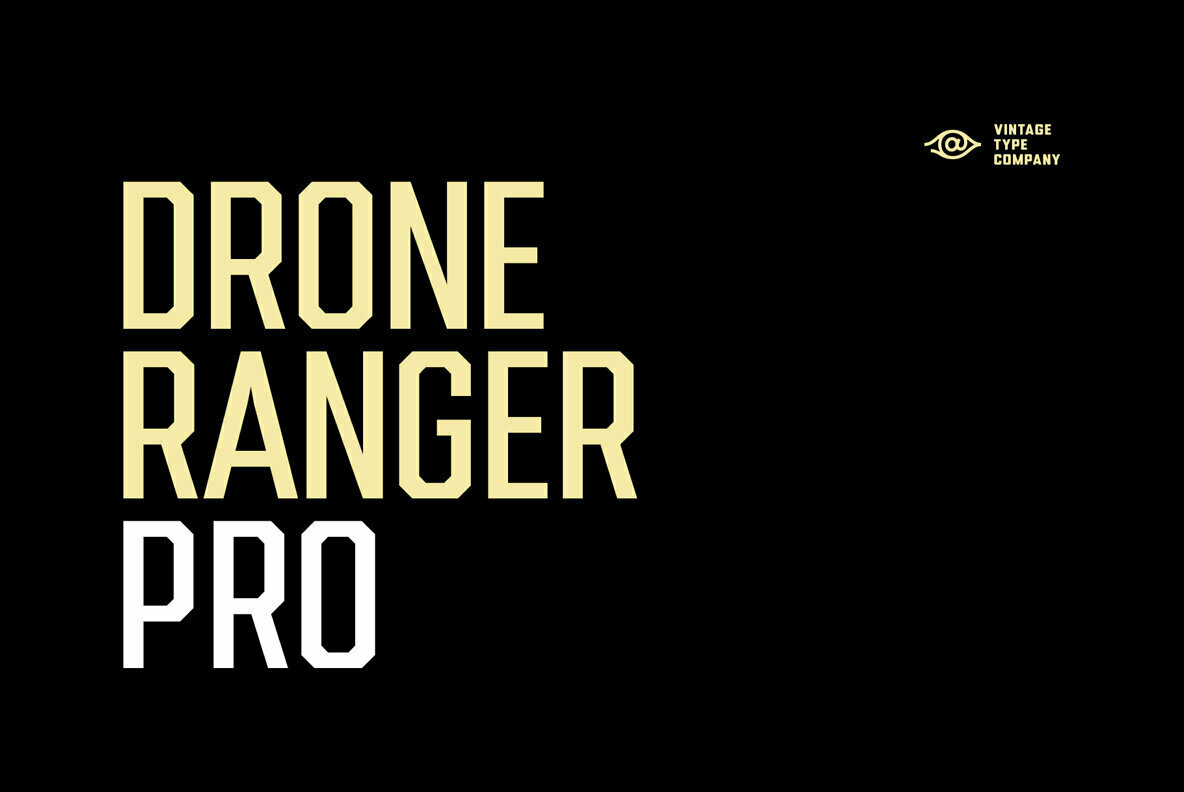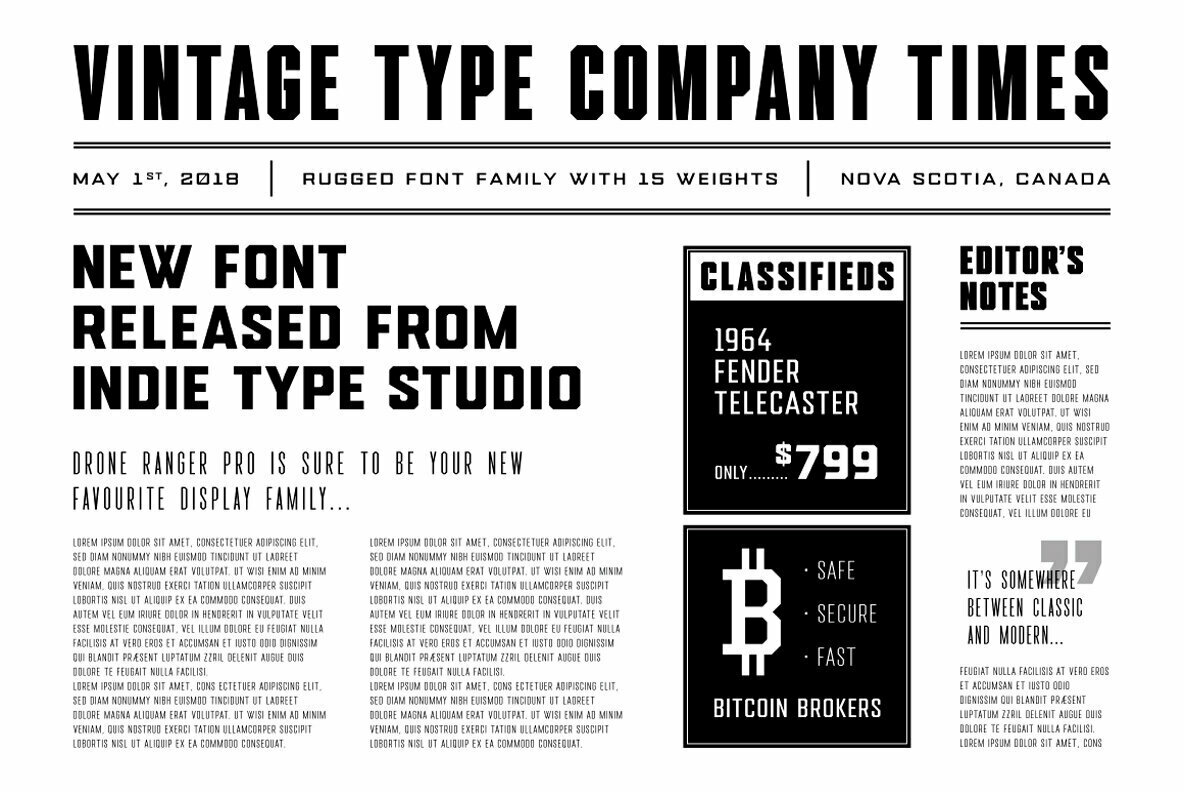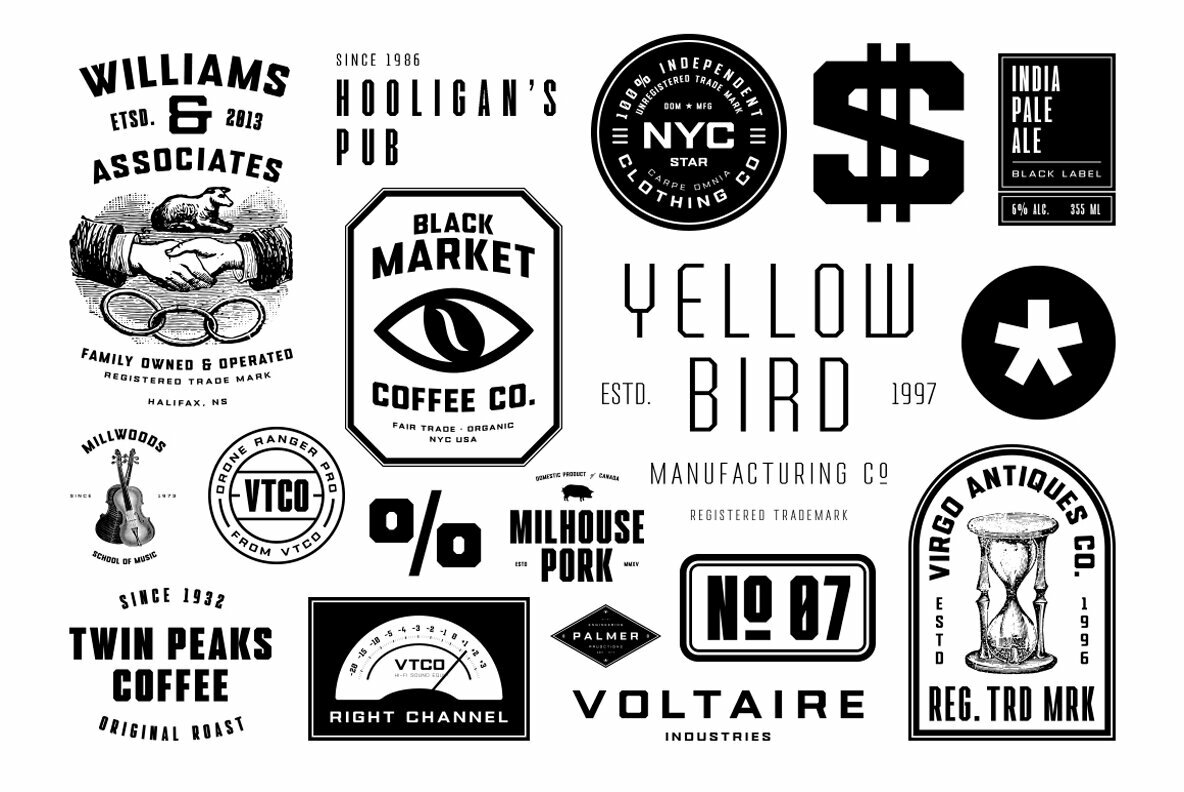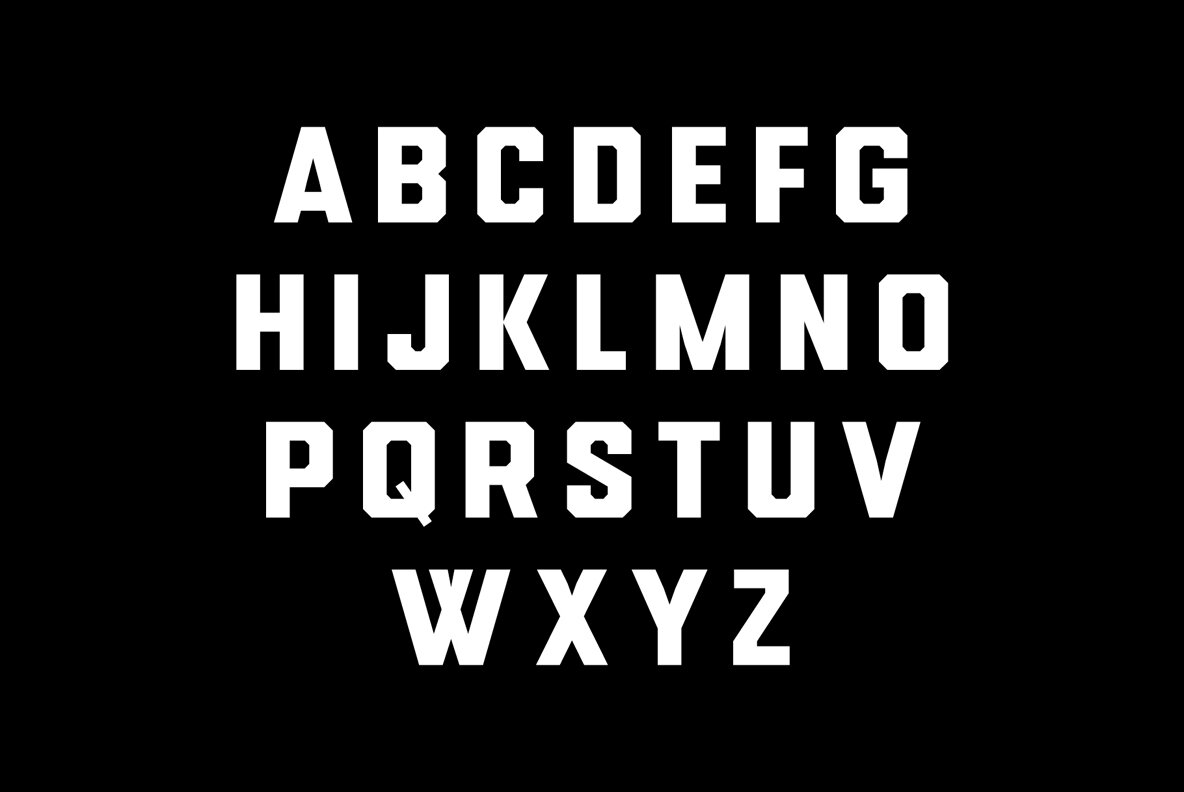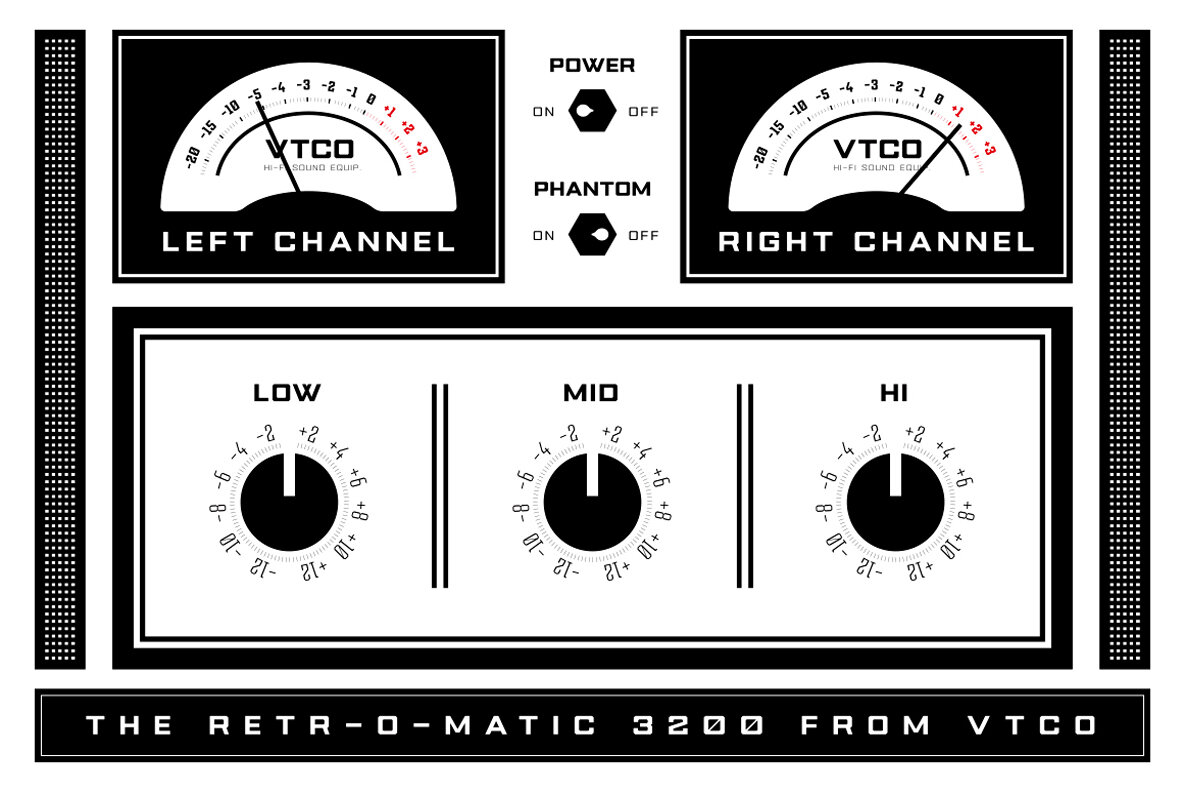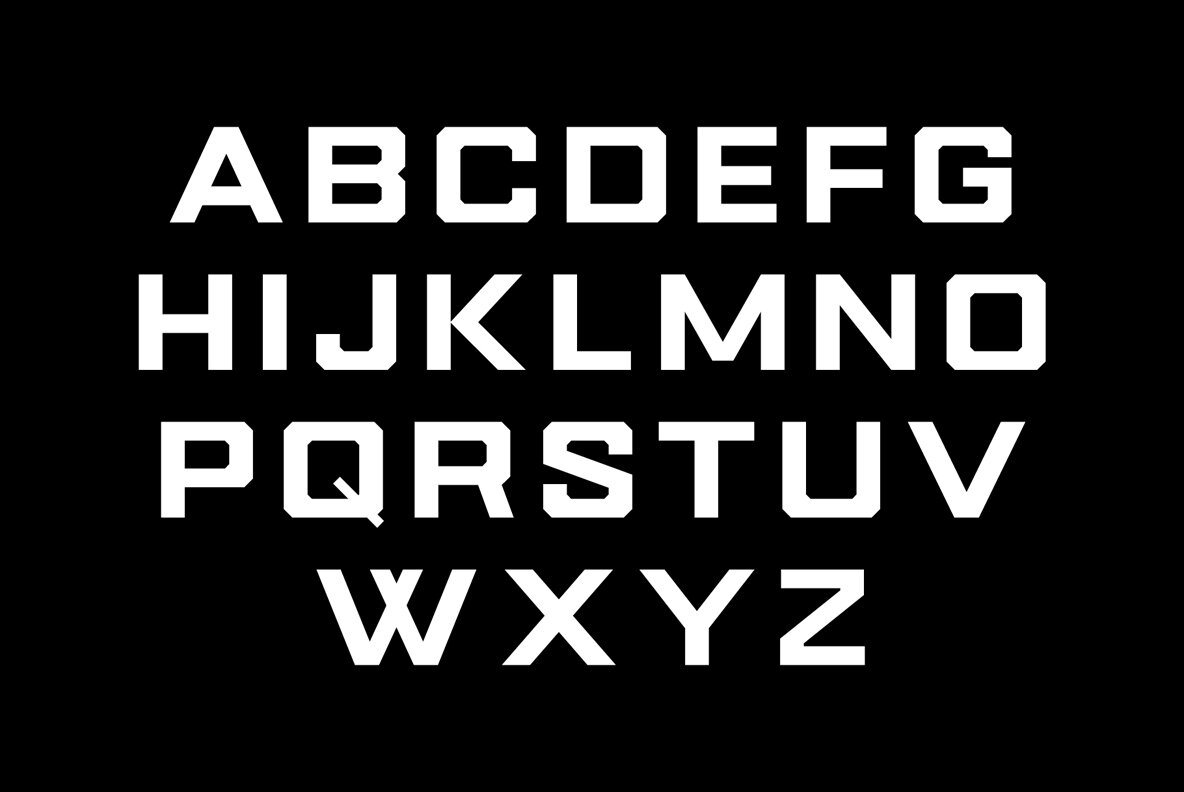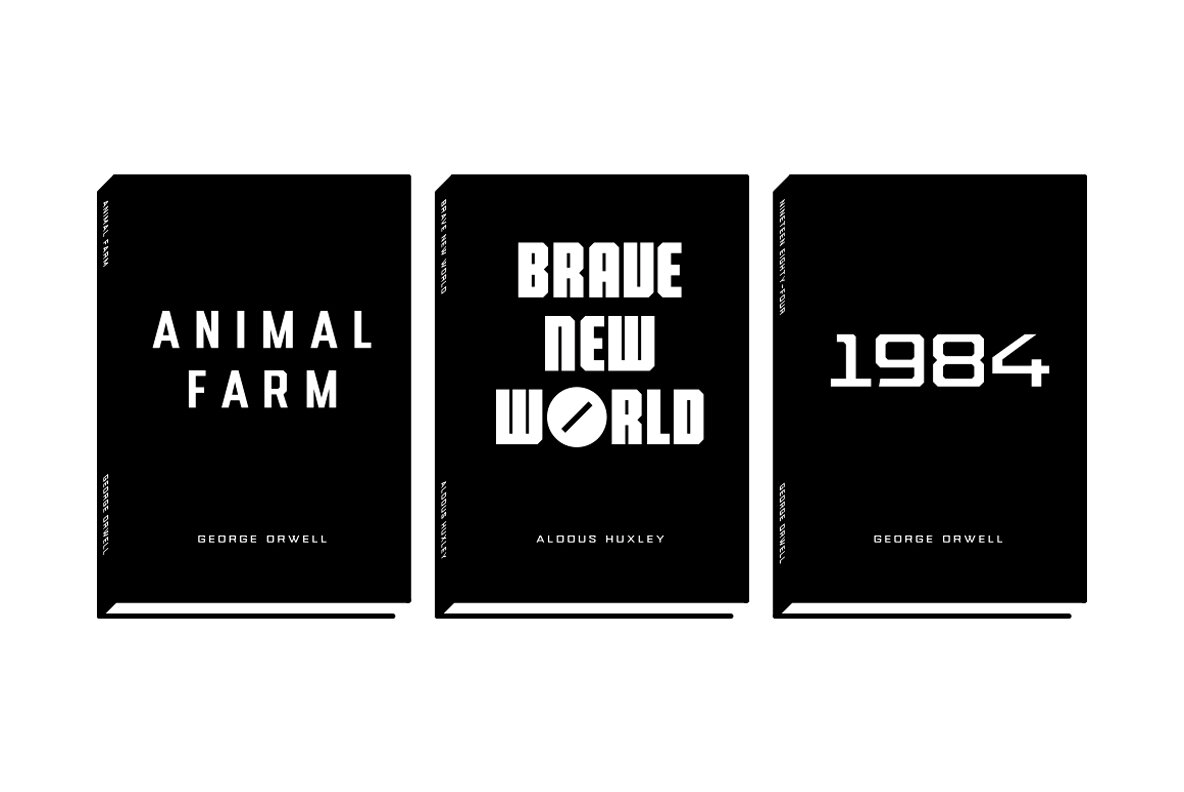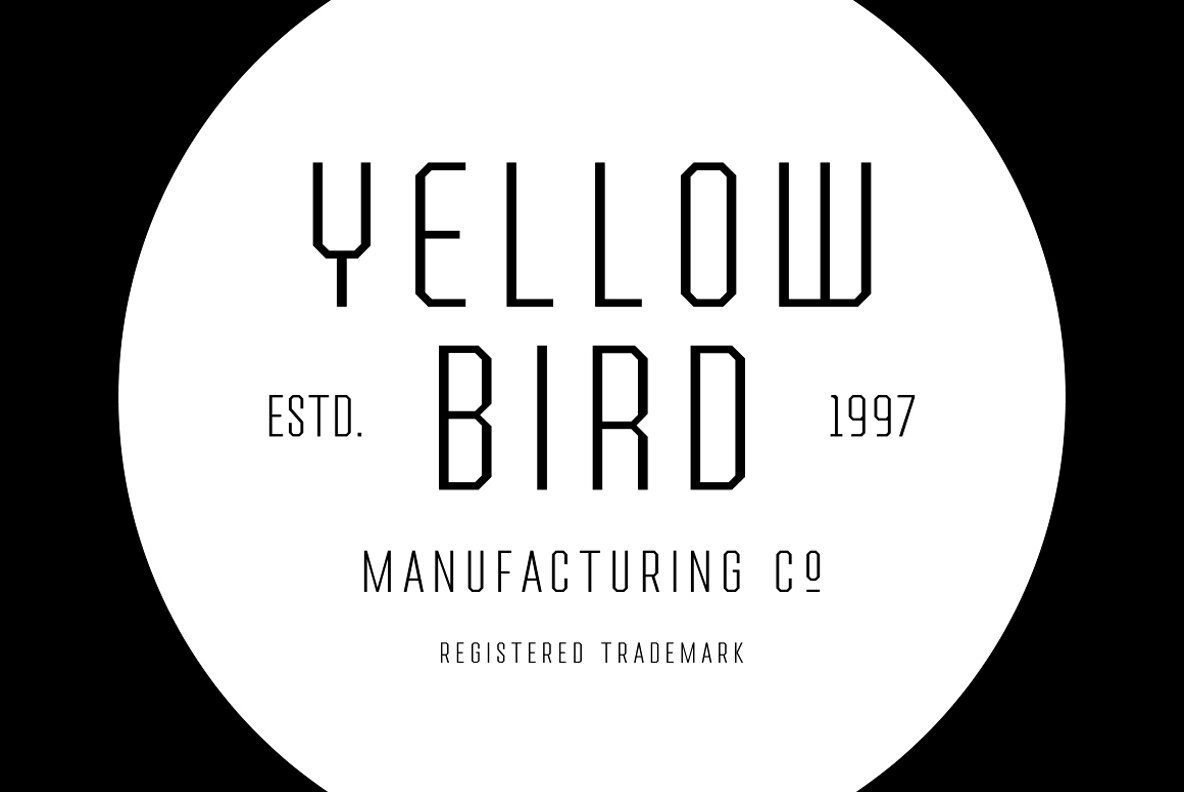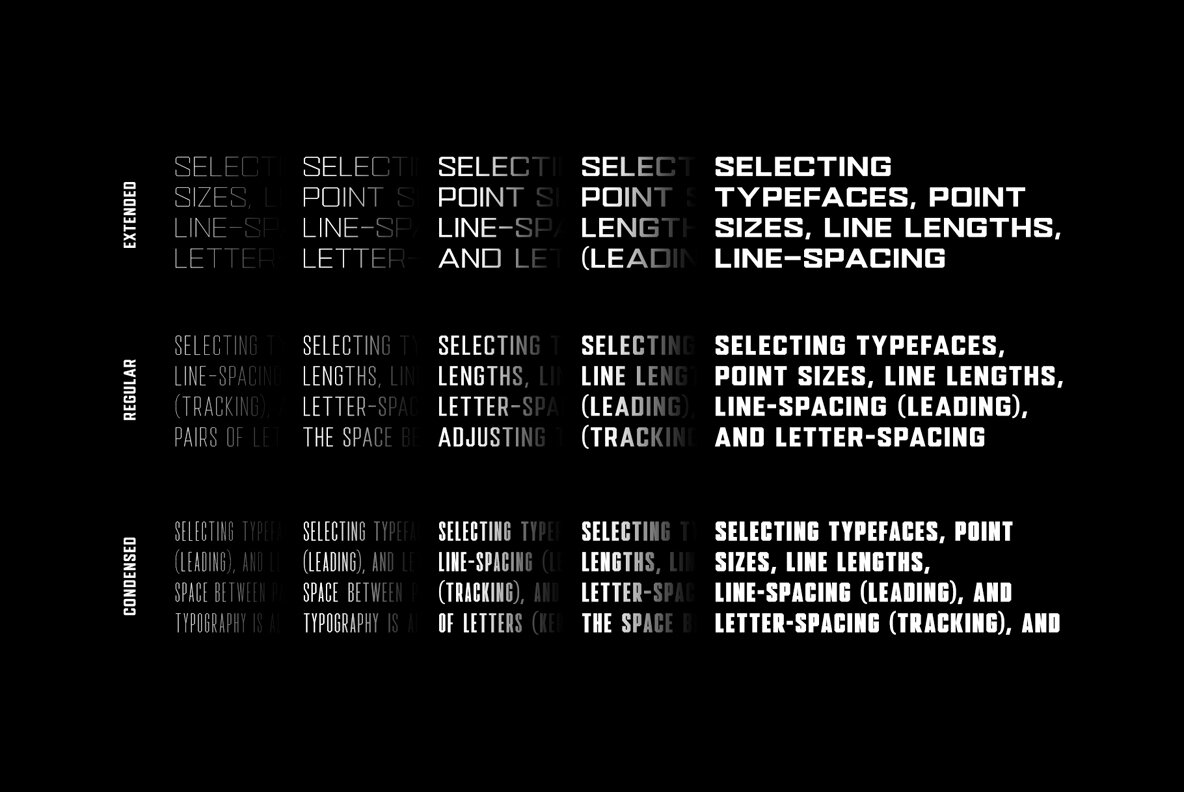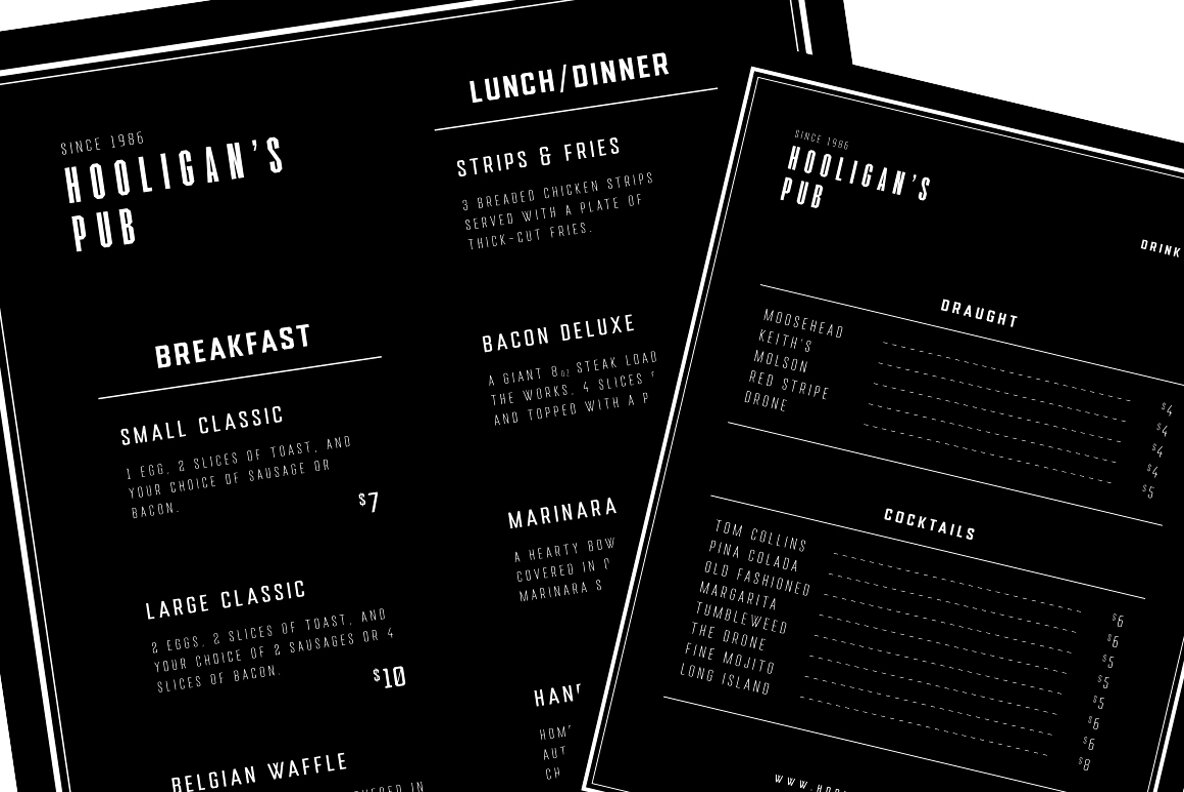
Drone Ranger PRO Font
The original, best-selling, Drone Ranger Display Font has been completely re-drawn, re-vamped, and upgraded with a ton of extra features.
Features include a full uppercase alphabet with alternate glyphs, varying stroke weights for better legibility, improved glyphs & numerals, fractions, and a full set of Adobe Latin 4 diacritics + basic Cyrillic.
Much like the original Drone Ranger, the PRO version still carries the feeling of a dystopian, futurist design movement with its bold letterform structure, and chiseled corners. It rests somewhere between old & new.